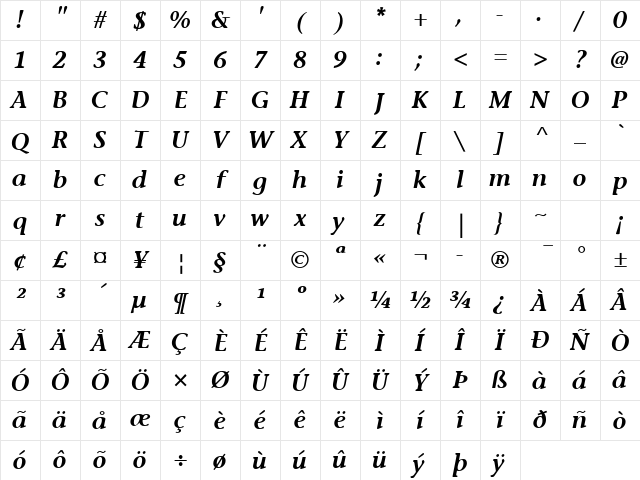
StoneInformalSemibold Italic
StoneInformalSemibold Family
Complete StoneInformalSemibold Italic glyph index. Displaying only characters natively supported by StoneInformalSemibold Italic font.
Design Context for StoneInformalSemibold
StoneInformalSemibold is a composed and adaptable typeface that performs quietly and consistently across a wide range of design contexts. The slanted form adds forward momentum and visual energy. Its bold stroke weight gives it real presence on the page.